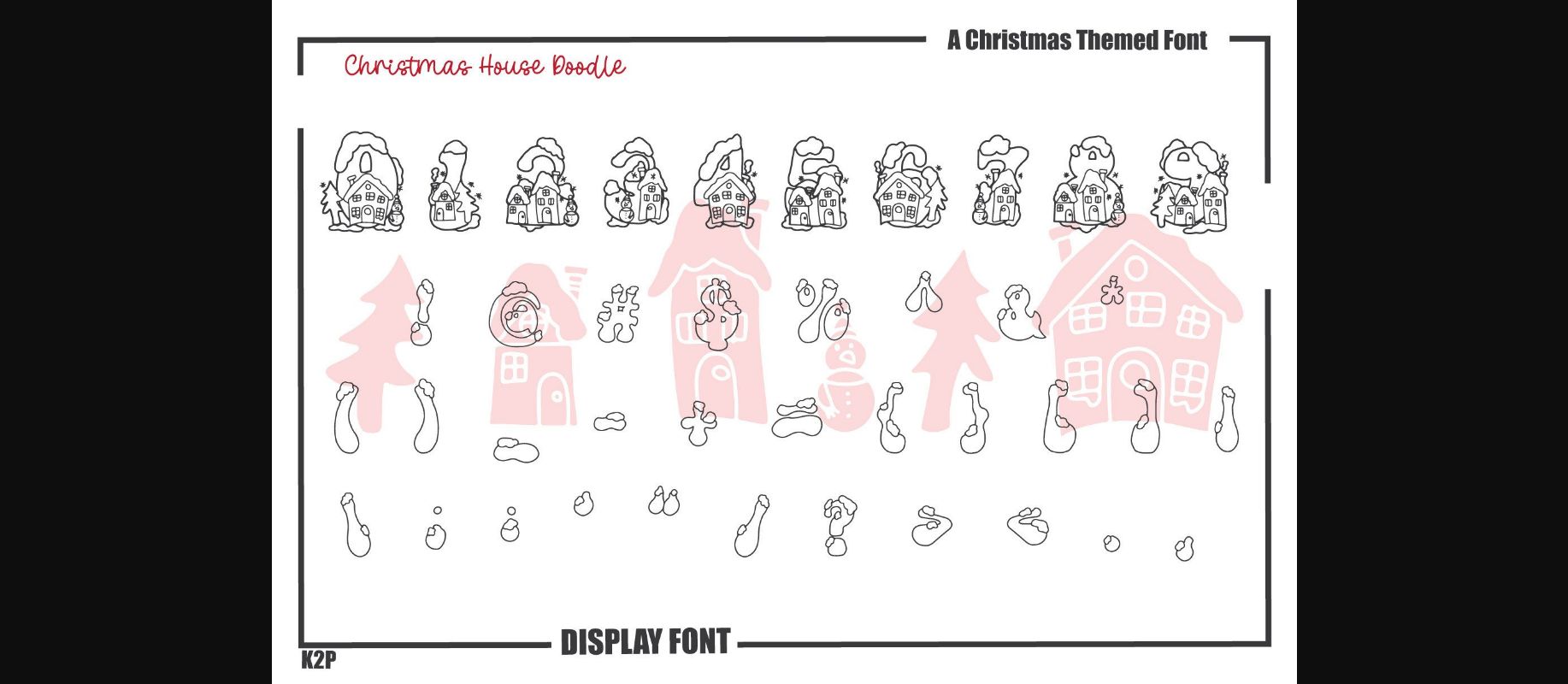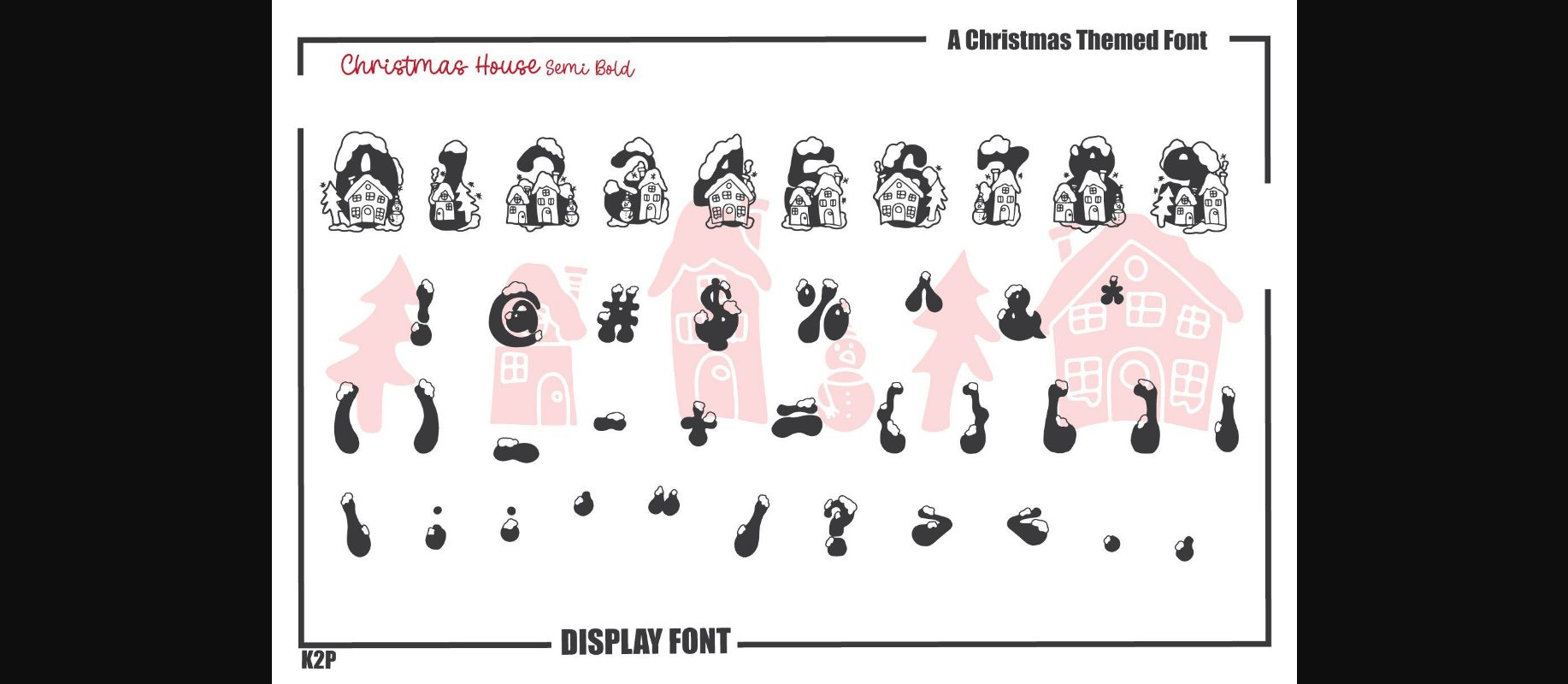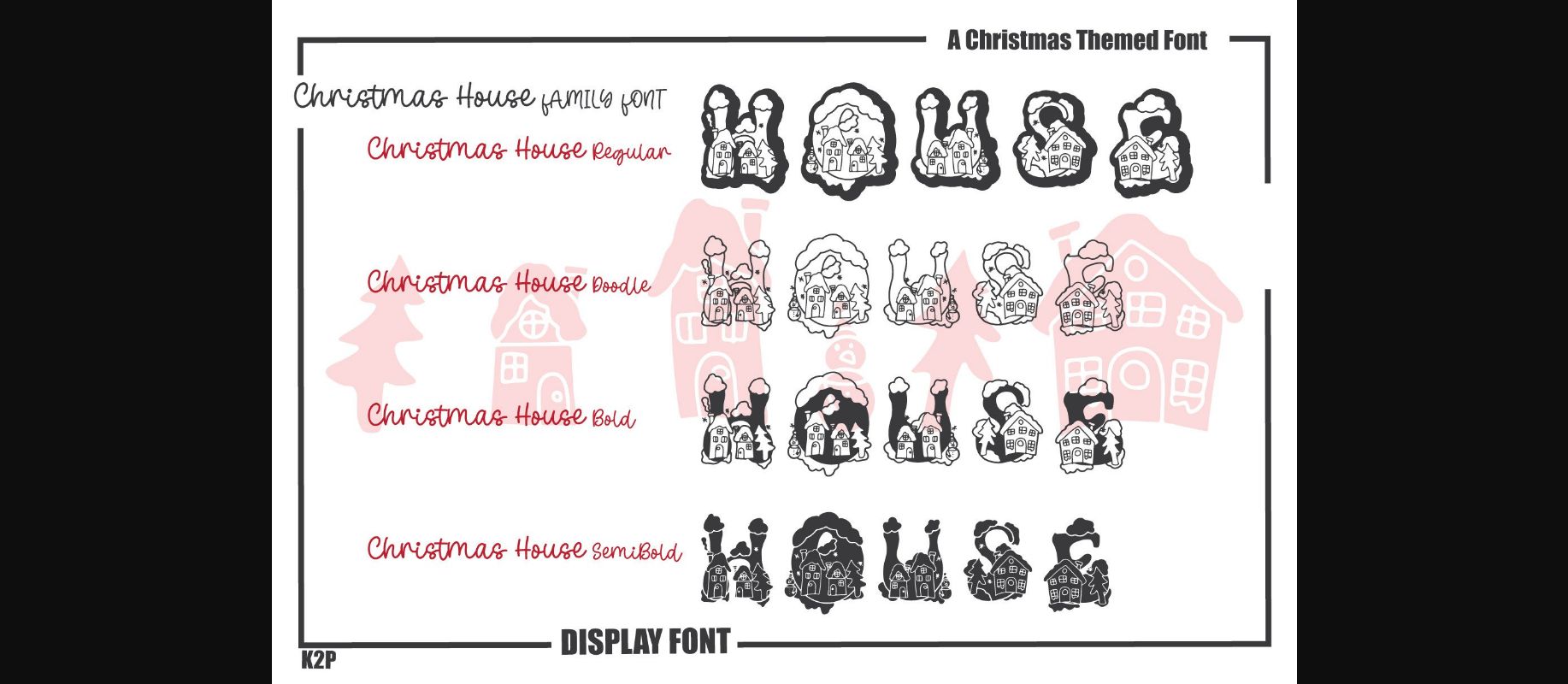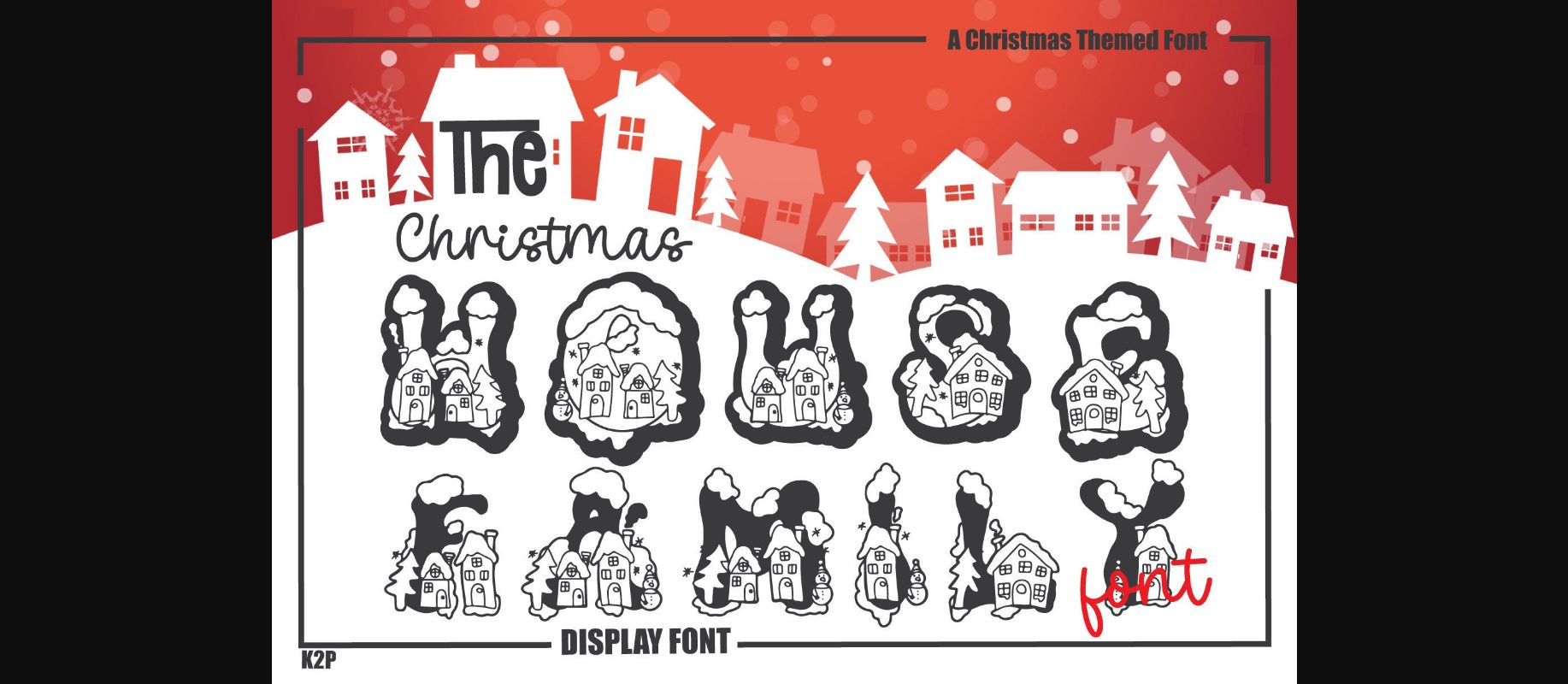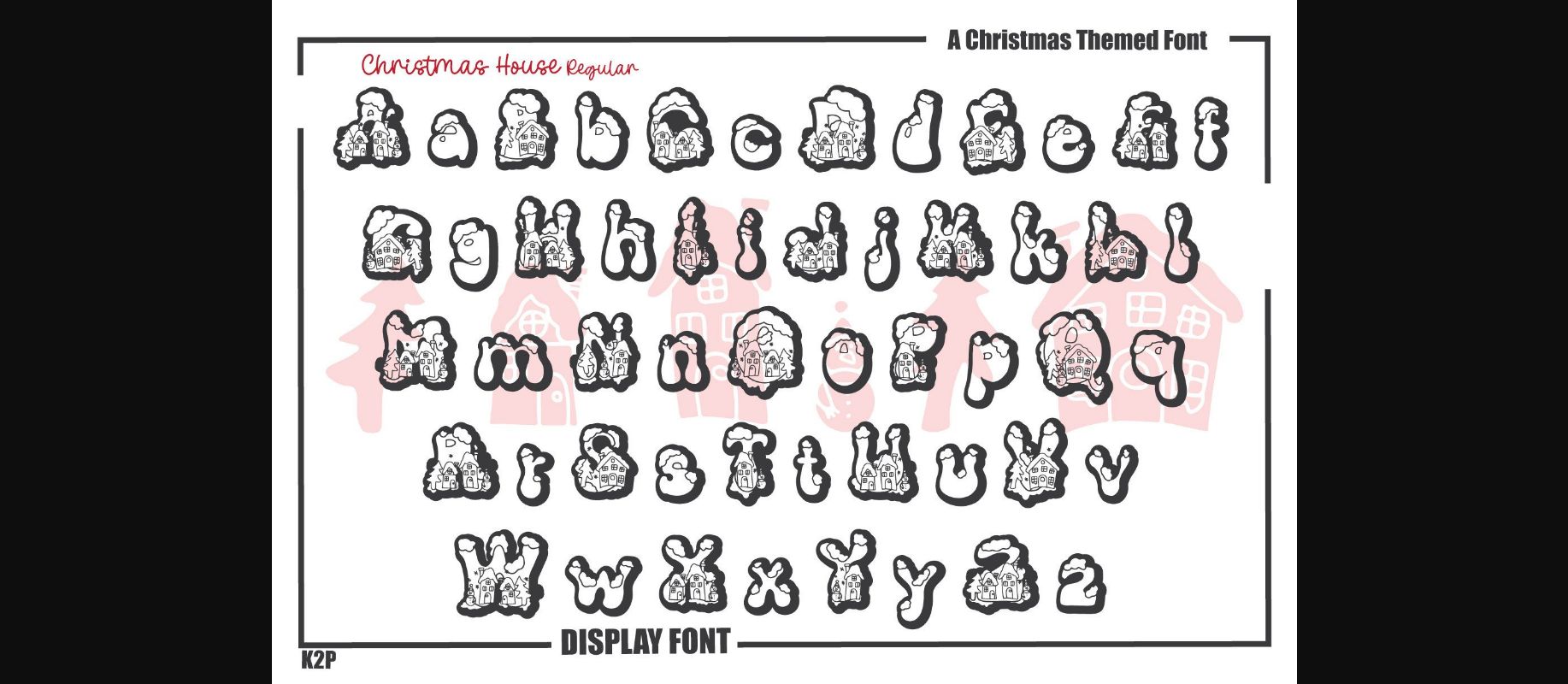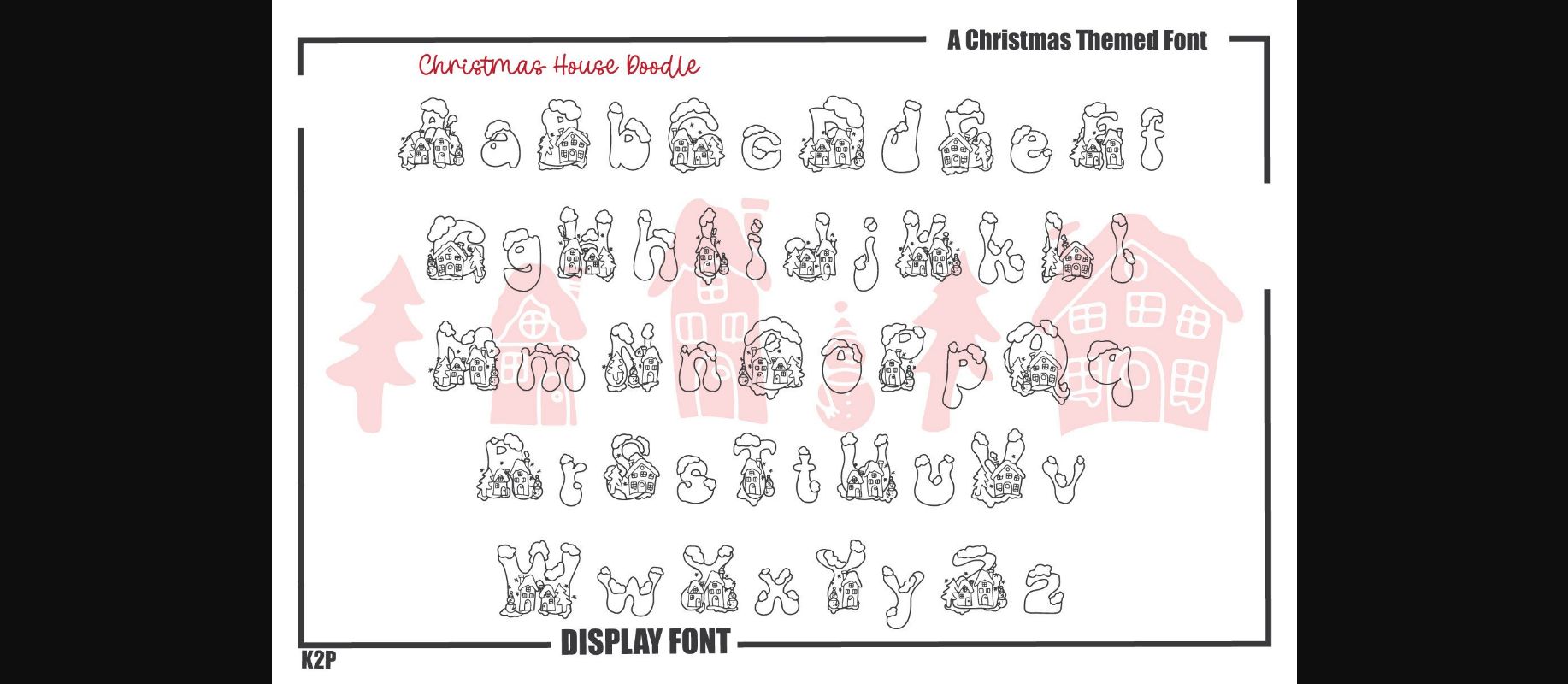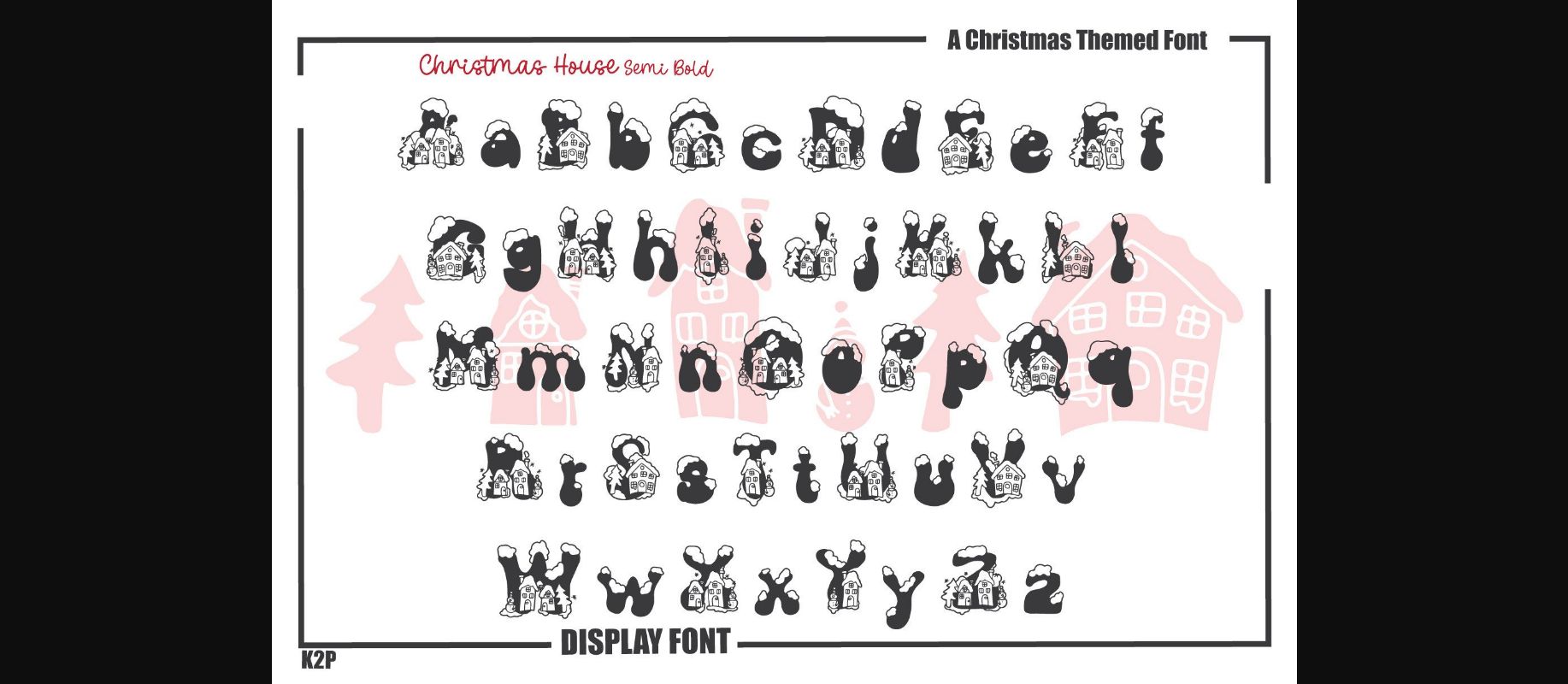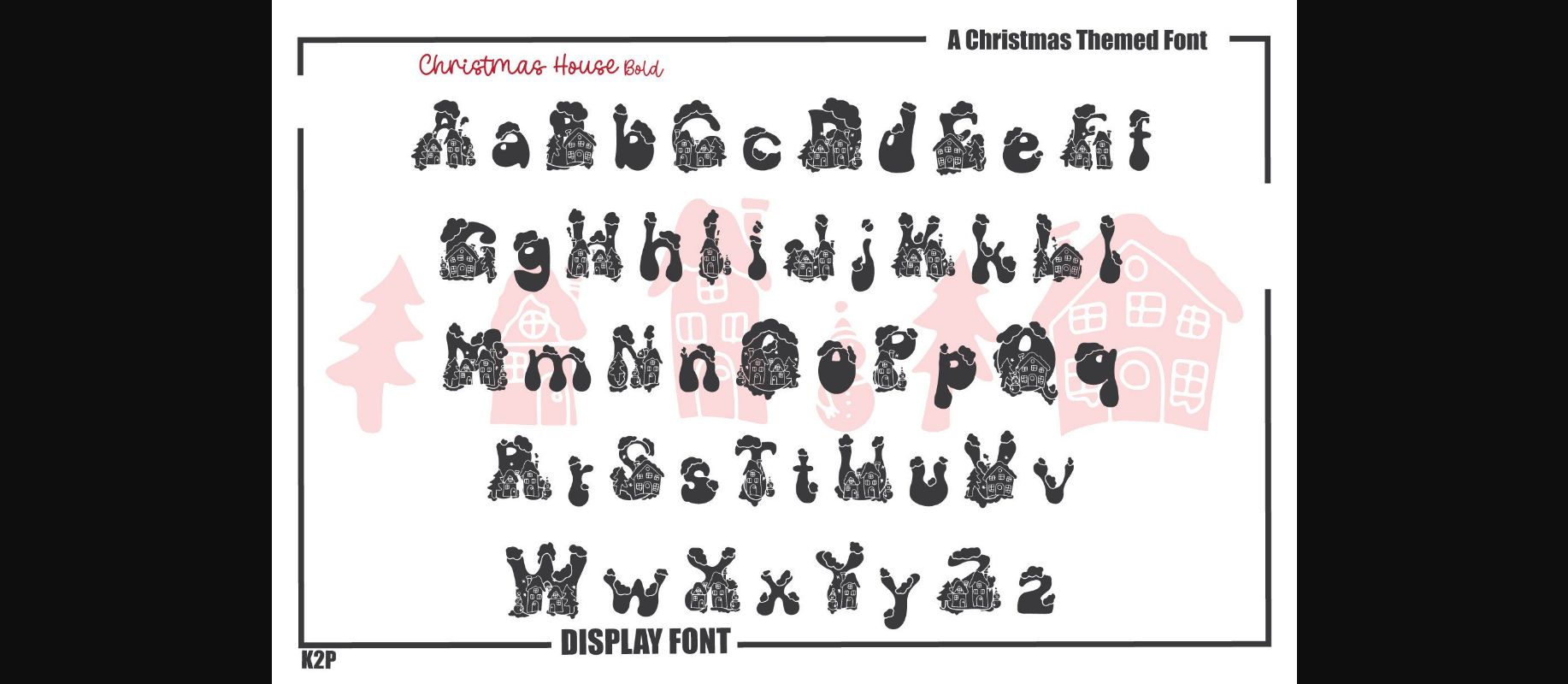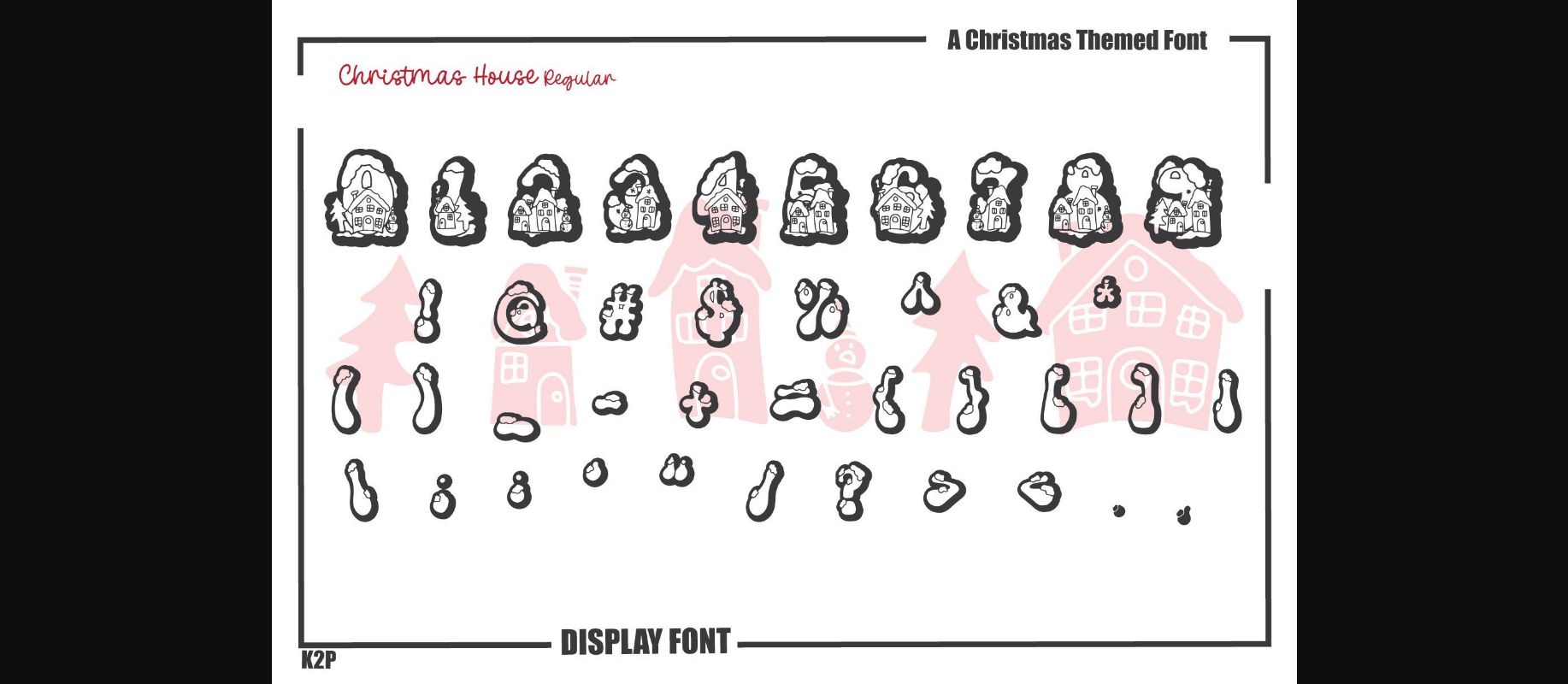
Christmas House is a fun and incredibly unique decorative font. It can be used for various design ideas, particularly those related to the Christmas Holiday.